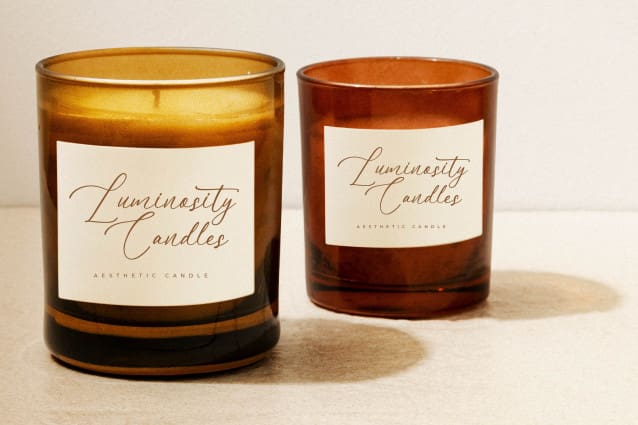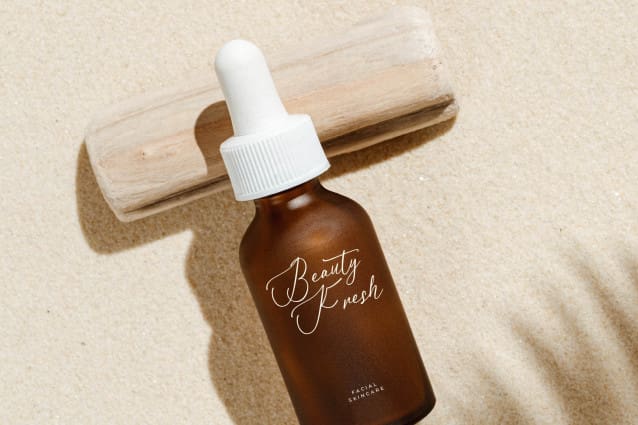
Koodarine Anstefia Font
Koodarine Anstefia Font – Modern Beauty Script , from Letterena, is a Luxury Script font, suitable for any projects such as: logos, branding projects, homeware designs, product packaging, mugs, quotes, posters, shopping bags, t-shirts, book covers, name card, invitation cards, greeting cards, label, photography, watermark, special events, and all your other luxury and beautiful projects that need a Luxury serif taste.